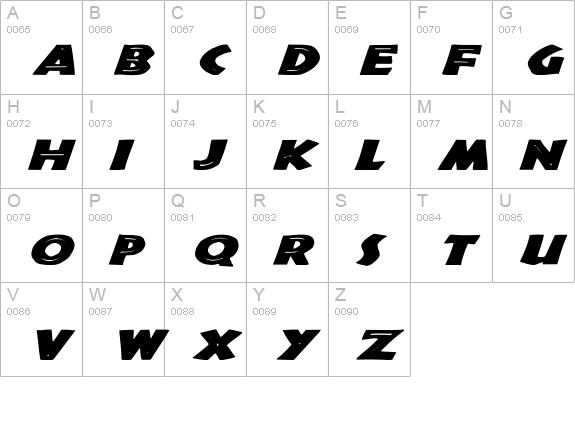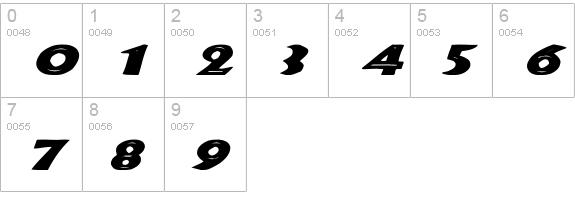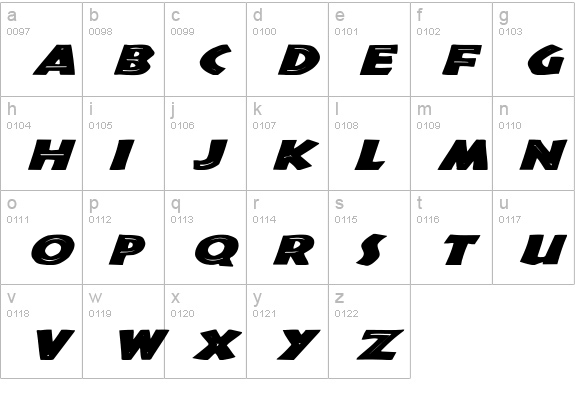
Tribeca Wd Bold Italic is a strong, high-contrast, italic variant in the Tribeca typeface family \xE2\x80\x94 well suited to headlines, attention-grabbing titles, and strong calls-to-action.
Introducing the captivating and highly versatile Tribeca Wd Bold Italic font! This remarkable typeface effortlessly combines strength and elegance, making it the perfect choice for a wide range of design projects. Its bold and italicized letterforms exude confidence and sophistication, while maintaining a sense of approachability. Tribeca Wd Bold Italic stands out with its unique blend of contemporary and classic influences. Its sleek and modern curves are balanced by a timeless appeal, making it suitable for both futuristic and traditional designs. Whether used for headlines, logos, posters, or branding materials, this font commands attention and leaves a lasting impression. One of the most exciting aspects of Tribeca Wd Bold Italic is that it is freely available to download at FontsMarket.com. This means that you can easily access this exceptional font and incorporate it into your projects without any cost. The availability of this font for free allows designers, students, and enthusiasts to explore its dynamic possibilities and unleash their creativity without any constraints. With its wide range of punctuation, numerals, and special characters, Tribeca Wd Bold Italic offers endless opportunities for customization and personalization. It effortlessly adapts to various design contexts, ensuring that your message is delivered with clarity and impact. Whether you are aiming for a bold and authoritative statement or a subtle and refined touch, this font has the versatility to meet your design needs. Embrace the power and beauty of Tribeca Wd Bold Italic font, and elevate your designs to new heights. Its timeless appeal, combined with the freedom to download it for free at FontsMarket.com, makes it an invaluable asset for any designer's toolkit. Unleash your creativity and explore the endless possibilities that this font brings to your projects.